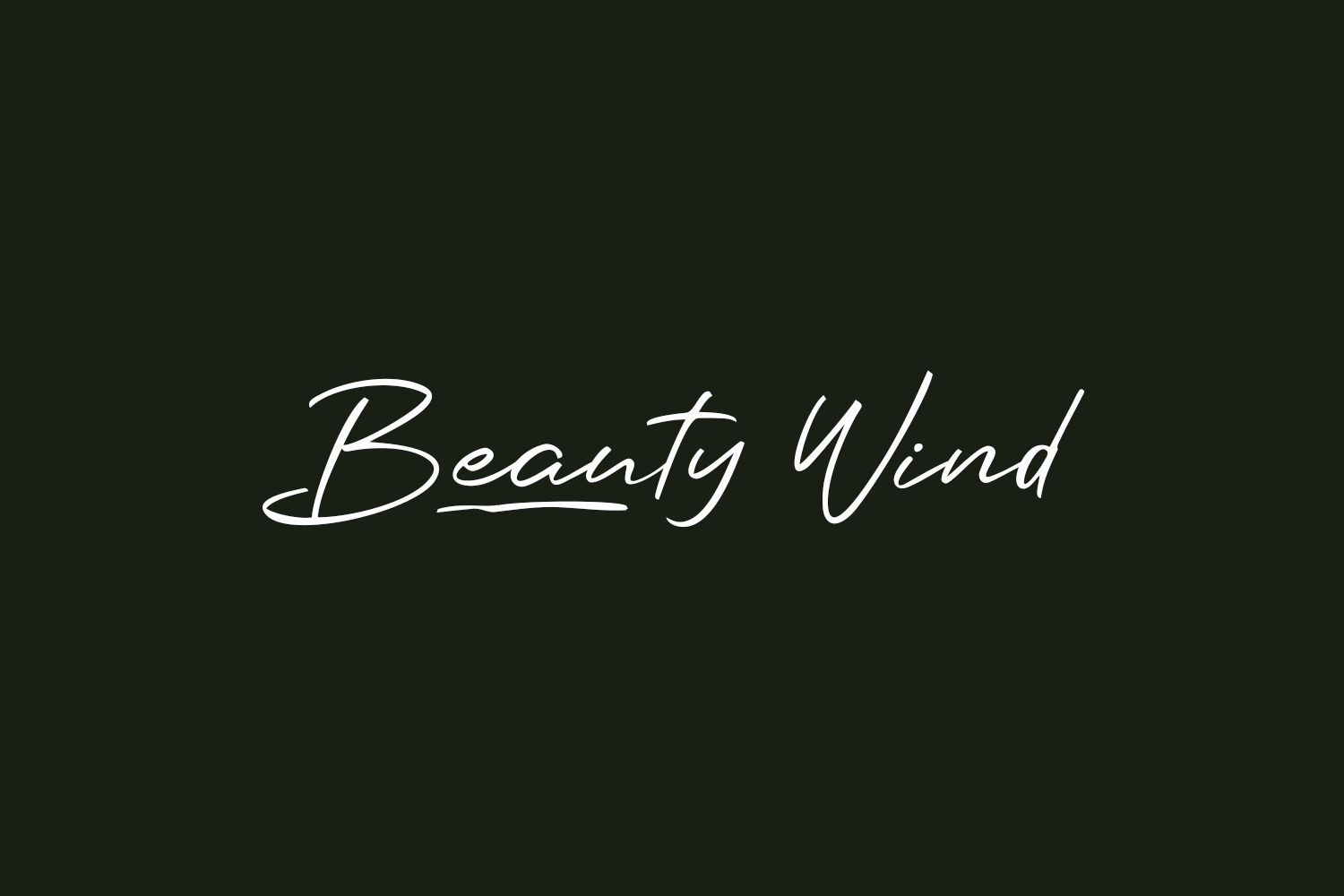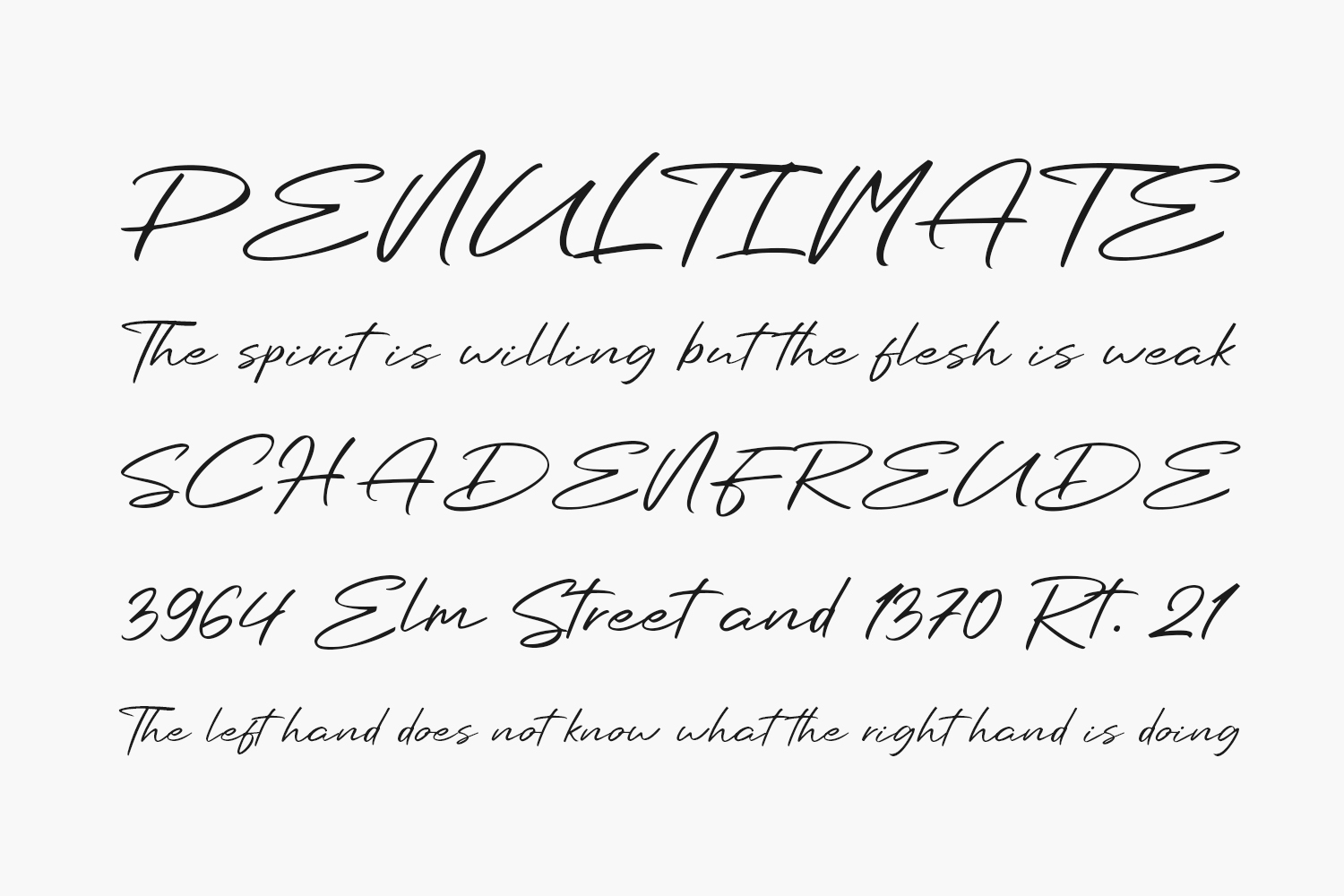
Discover Beauty Wind Free Font is a clean, stylish, and elegant script font tailored for posters, logos, magazines, book covers, banners, and more! Elevate your designs with this incredible font, perfect for a wide range of projects. Enhance your creative ideas and watch them shine with Beauty Wind’s unique charm. Beauty Wind Free Font is free for personal use only. Please purchase the full version for commercial use.